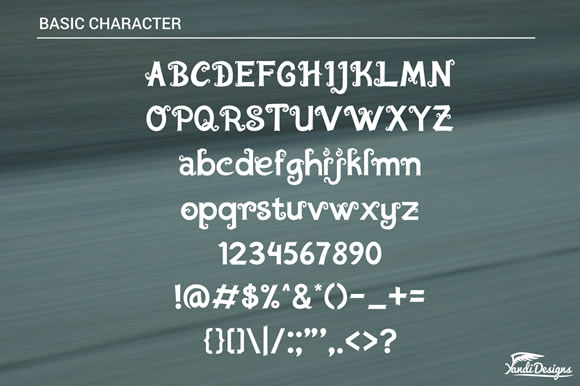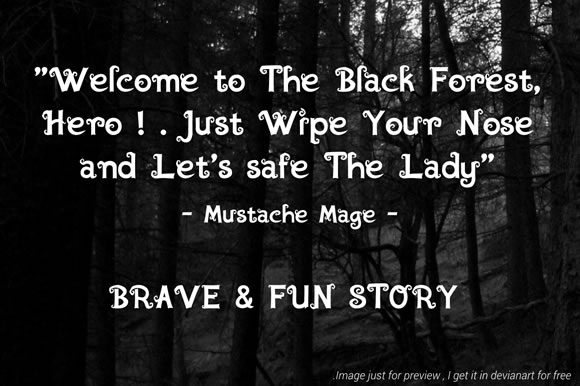
Introducing Algae Font: The Elegant Typeface for Creative Projects
Are you a designer, crafty person, or simply someone who appreciates beautiful typography? Look no further than Algae Font, an elegant typeface that can elevate your creative projects to the next level. With its sophisticated and refined design, Algae Font is perfect for a wide range of applications, from headings and logos to banners, posters, book covers, invitations, quotes, and more!
What Makes Algae Font So Special?
Algae Font is a meticulously crafted typeface that exudes elegance and sophistication. Its unique design features make it an excellent choice for designers and crafters looking to add a touch of refinement to their work. Here are just a few reasons why Algae Font stands out:
- Versatility: Algae Font is incredibly versatile, making it suitable for a wide range of projects, from print materials like brochures and posters to digital applications like social media graphics and website headers.
- Elegant Design: The font’s elegant design features flowing lines, subtle curves, and a sophisticated aesthetic that adds a touch of luxury to any project.
- High Readability: Despite its elegant design, Algae Font remains highly readable, even at smaller font sizes, making it perfect for body text and captions.
Uses for Algae Font
Algae Font is an incredibly versatile typeface that can be used for a wide range of creative projects. Here are some ideas to get you started:
- Headings and Titles: Use Algae Font to create stunning headings and titles for your blog posts, articles, and website content.
- Logos and Branding: Create a professional and elegant logo for your business or brand using Algae Font.
- Banners and Posters: Design eye-catching banners and posters for events, promotions, or advertising campaigns.
- Book Covers and Invitations: Add a touch of sophistication to your book covers, invitations, and greeting cards.
- Quotes and Social Media Graphics: Use Algae Font to create inspiring quotes, social media graphics, and other digital content.
Why Designers and Crafters Love Algae Font
Designers and crafters love Algae Font for its unique combination of elegance, versatility, and readability. Here are some reasons why:
- Unique Design: Algae Font offers a fresh and unique design that sets it apart from other typefaces.
- High-Quality: Algae Font is a high-quality typeface that is designed to produce crisp and clear results, even at smaller font sizes.
| Font Name | Algae Font |
| Author | YandiDesigns |
In conclusion, Algae Font is an elegant and versatile typeface that is perfect for designers, crafters, and anyone looking to add a touch of sophistication to their creative projects. With its unique design, high readability, and wide range of uses, Algae Font is an excellent choice for anyone looking to elevate their design work. So why wait? Try Algae Font today and discover the power of elegant typography!